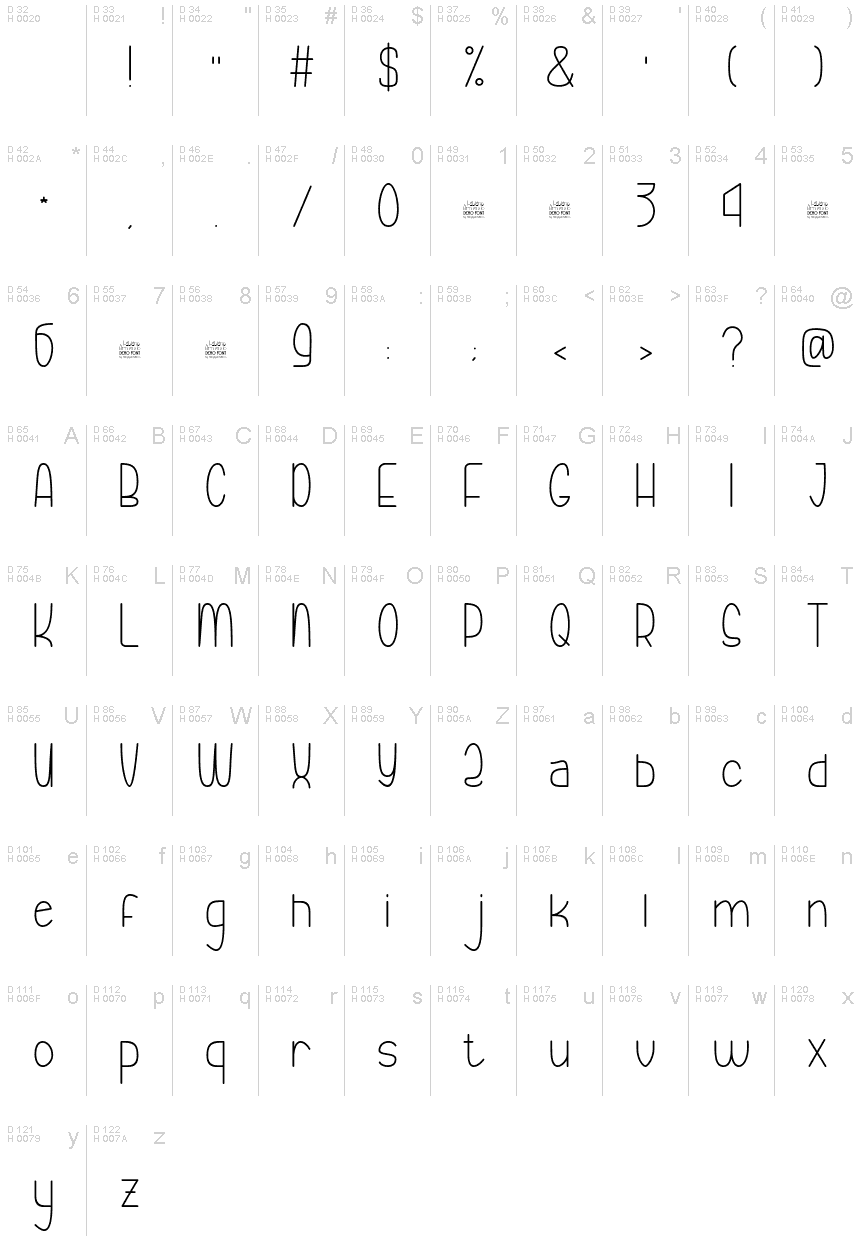
Fabiano Armando Thin
Fabiano Armando Thin, a member of the Fabiano Armando font family, presents a refreshing take on handwritten aesthetics with its extra-light and condensed characteristics. Crafted by bringtypestudio.co, this font exudes an air of elegance and subtlety that captures the essence of modern minimalism.
The delicate strokes and sleek condensed width embody sophistication, making Fabiano Armando Thin an exquisite choice for upscale branding, editorial designs, and sophisticated print materials. Its handwritten style adds a touch of personal charm that is both approachable and distinctive.
In digital landscapes where uniqueness stands out, this font's airiness pairs beautifully with spacious design layouts, enhancing readability while providing an artistic flair. Whether it's for fashion labels, tech startups or creative portfolios, Fabiano Armando Thin has the versatility to elevate any project with its stylistic finesse.